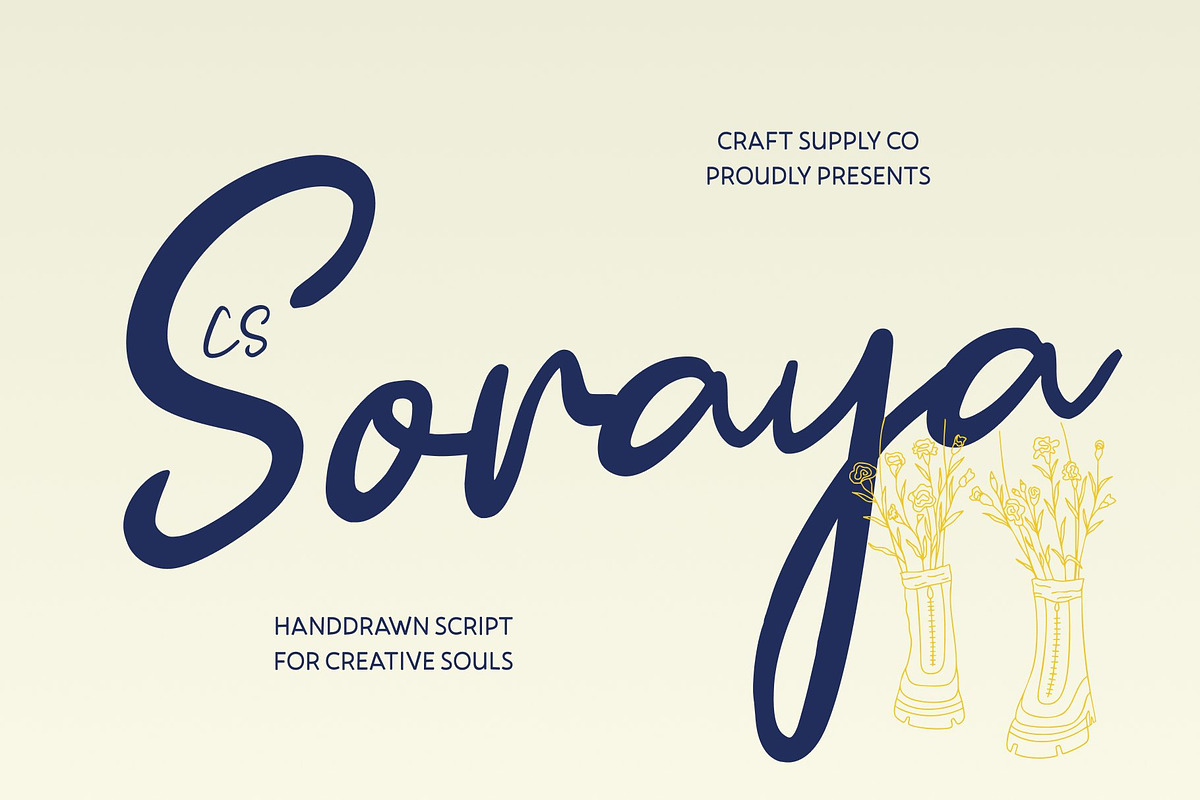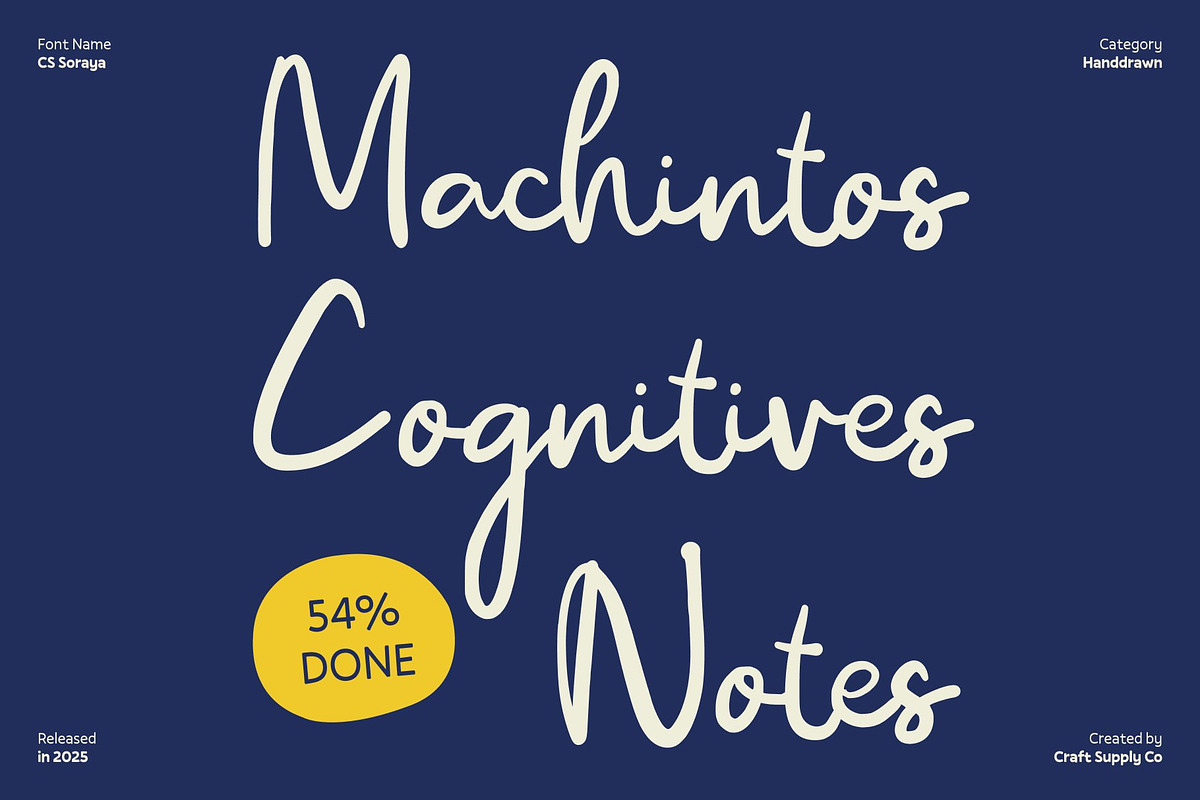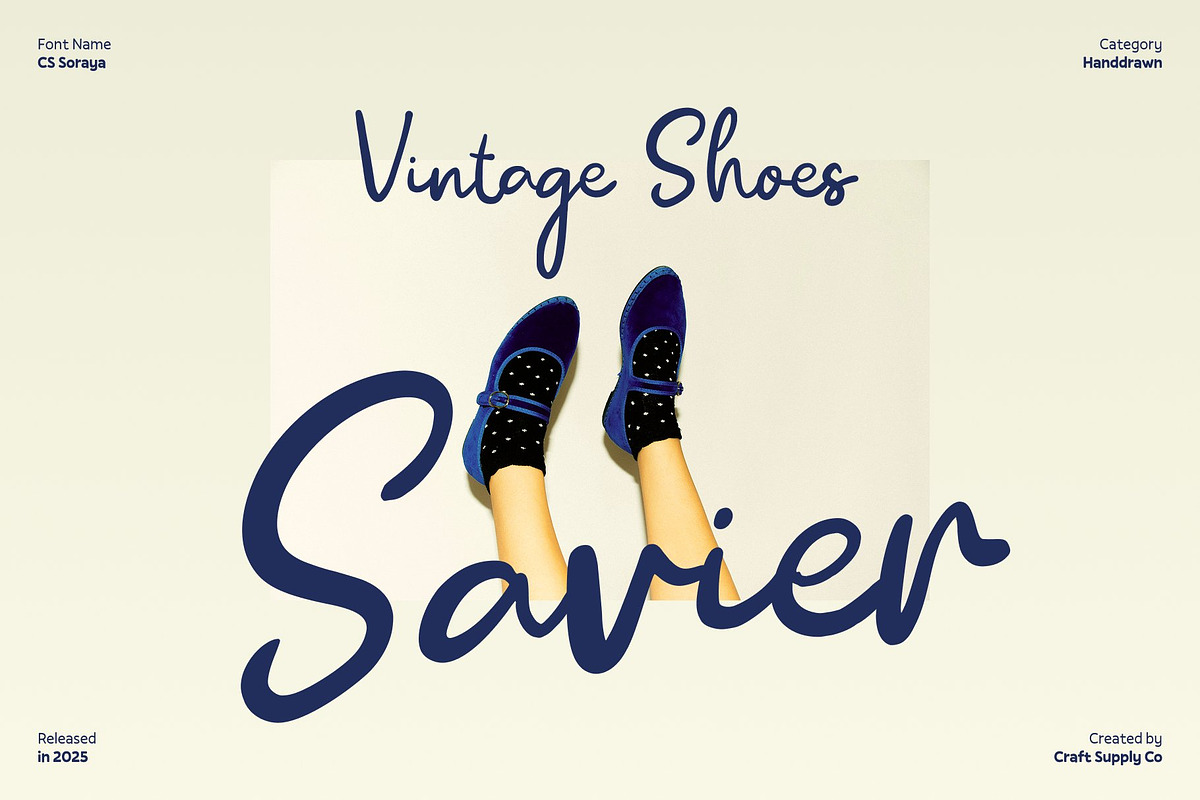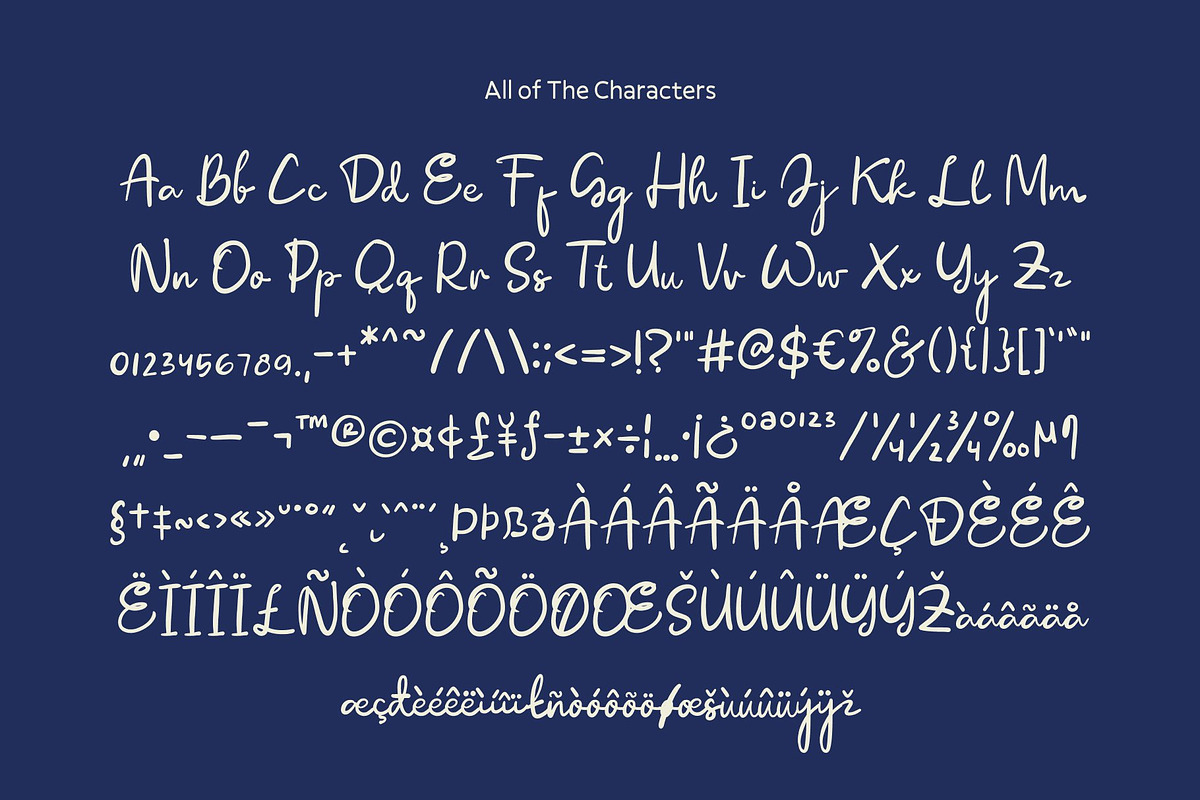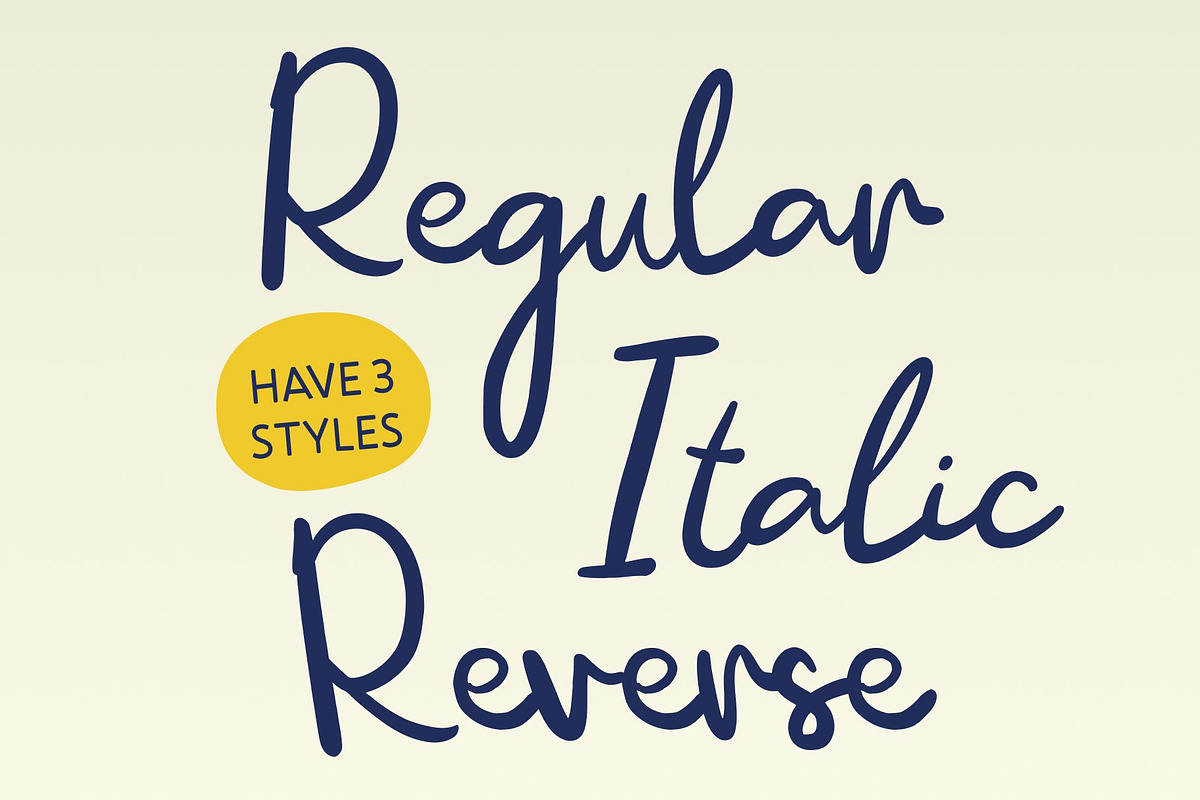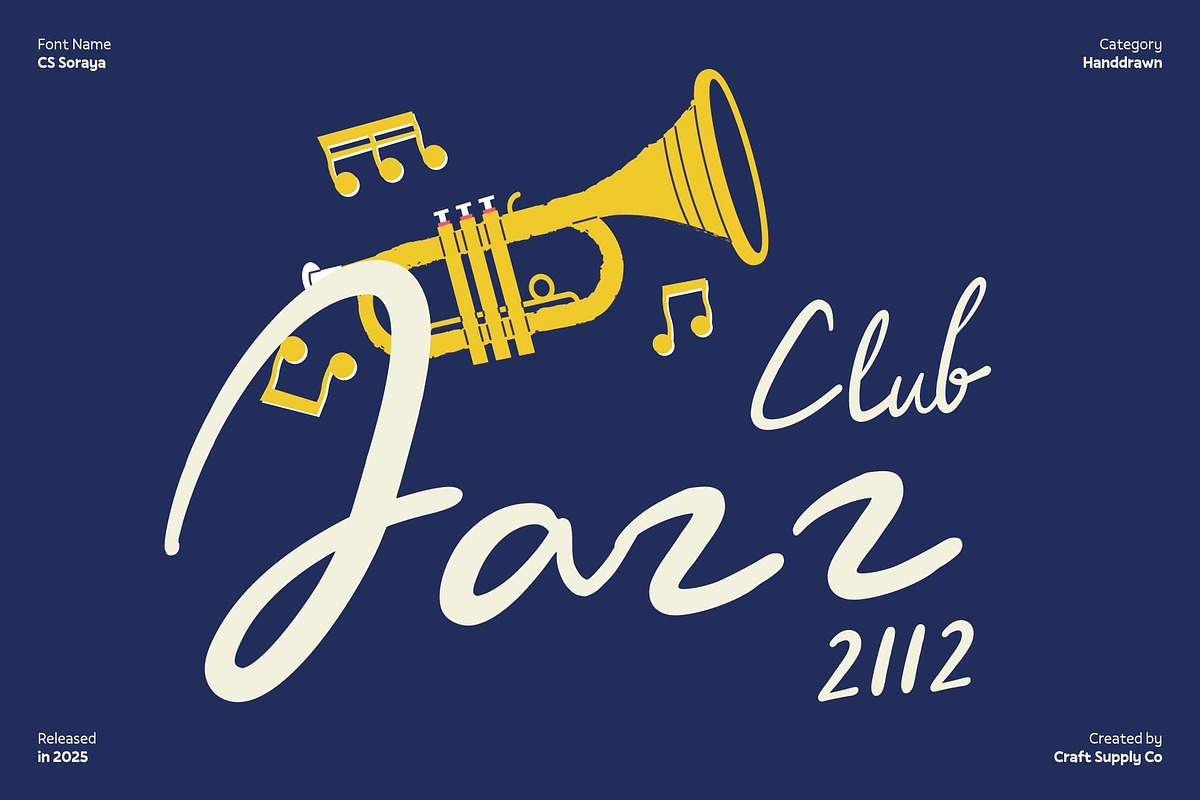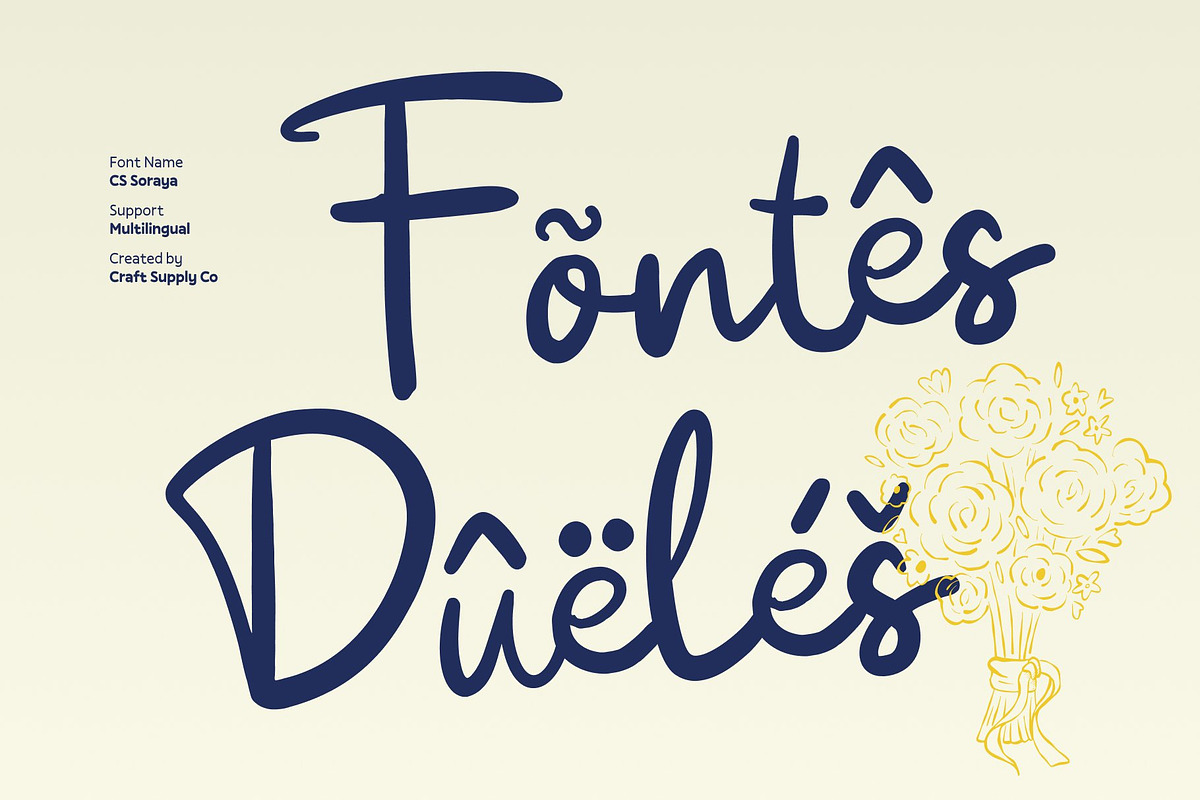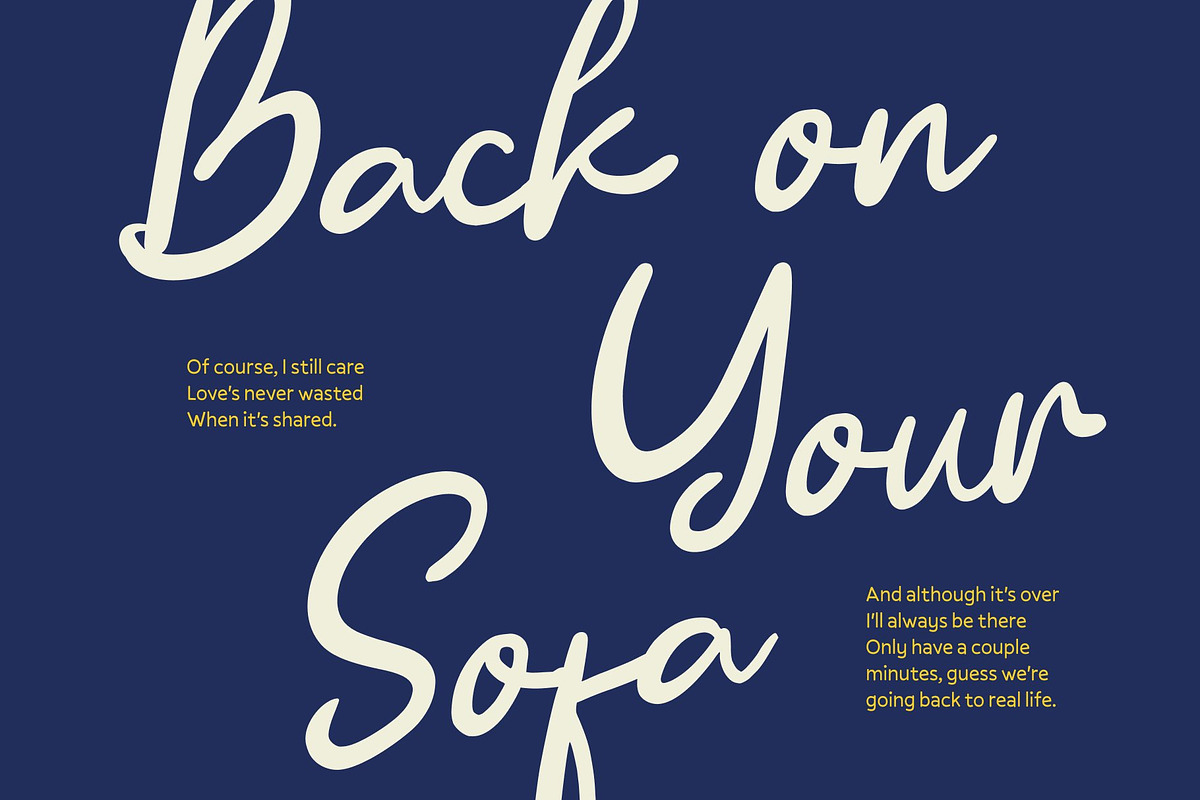
CS Soraya – Handwritten Script
CS Soraya – Carefree Vacation Vibes in Script Form
Vacay Script Font with Relaxed Holiday Spirit This is a carefree vacay script font designed to capture the joyful, relaxed energy of holidays and cool summer moments. Inspired by travel escapes, sunny days, and laid-back lifestyles, this font brings a fresh and playful handwritten feel to any design. Its flowing strokes and natural rhythm create an effortless charm that instantly communicates freedom, fun, and positivity.
Smooth Curves with Cool, Casual Personality The letterforms of this font feature smooth curves and fluid connections that enhance its relaxed personality. Each character feels light and spontaneous, giving the font a natural handwritten appearance that feels friendly and modern. This cool, casual style makes perfect for designs that want to feel approachable.
Relaxed Expression for Lifestyle and Event Designs This font excels at expressing a sense of ease and enjoyment. Its vacay-inspired script style brings warmth, making it ideal for lifestyle visuals, event promotions, and creative storytelling. The font works beautifully as a headline or accent type, adding personality and energy while maintaining clarity and balance in the overall composition.
Perfect for Social Media, Branding, and Events Designed for versatile, feel-good applications, this font is perfect for social media content, branding, event materials, packaging, and promotional designs. Its holiday-inspired charm makes it especially suitable for travel brands, beach events, summer campaigns, cafés, and creative businesses.